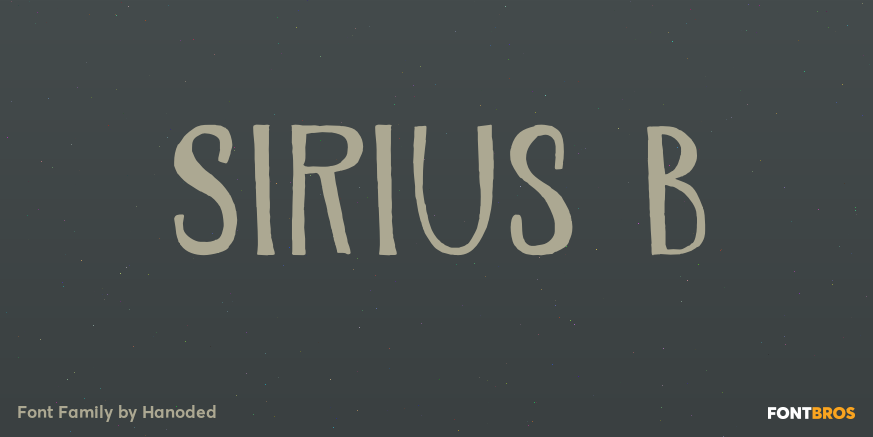
Sirius B
About Sirius B
Sirius B is a very lively display font. It can be used for book covers or posters, but would look rather dandy on T-shirts, mugs and other merchandise as well! Sirius B comes with alternates for all upper- and lowercase letters, has extensive language…